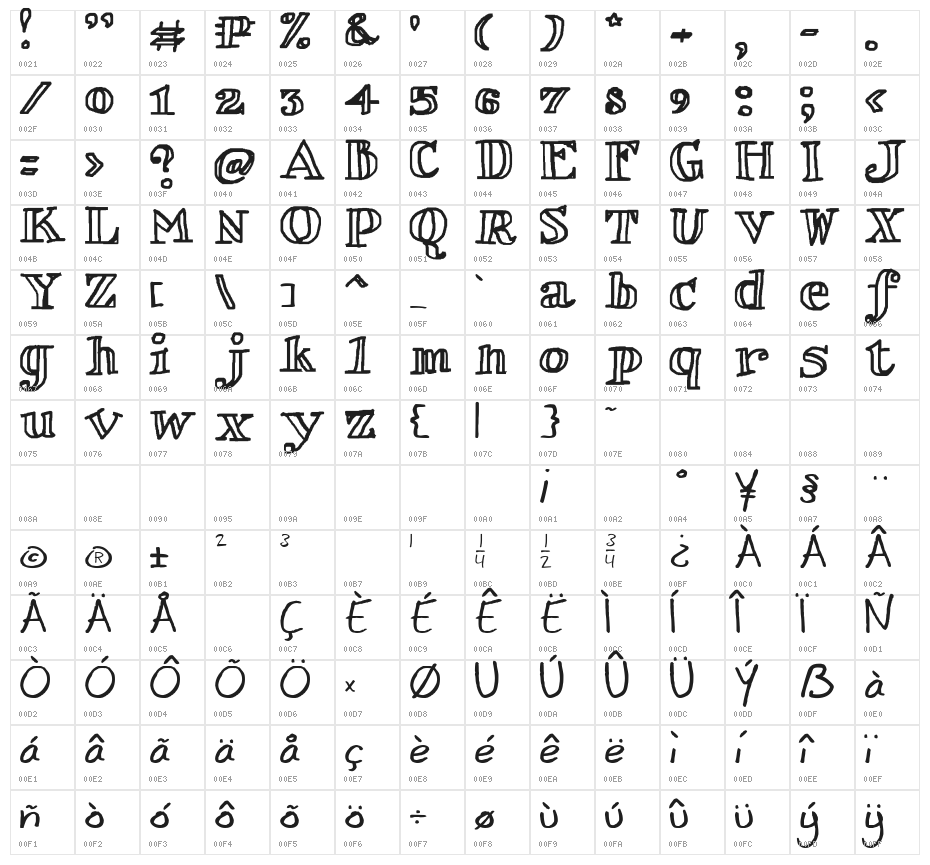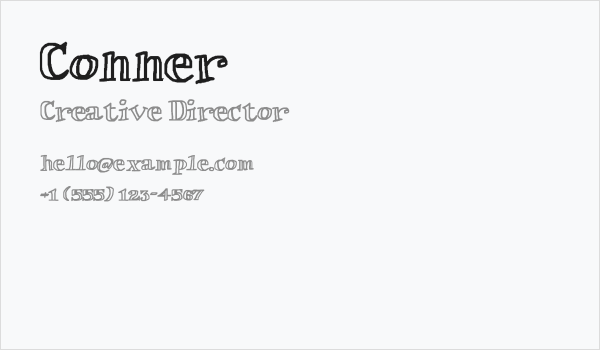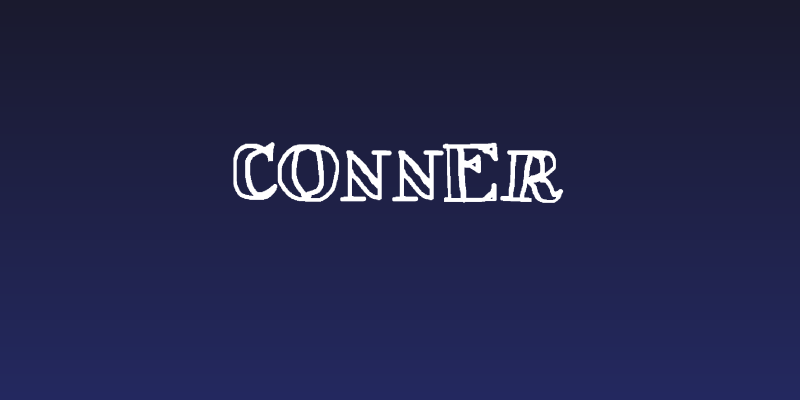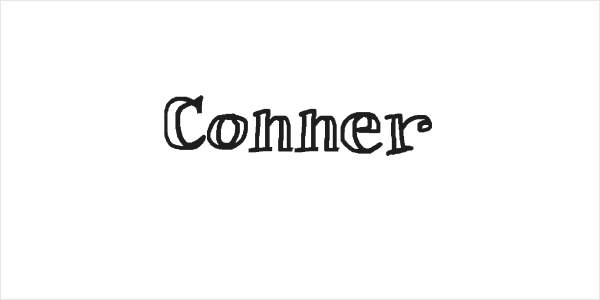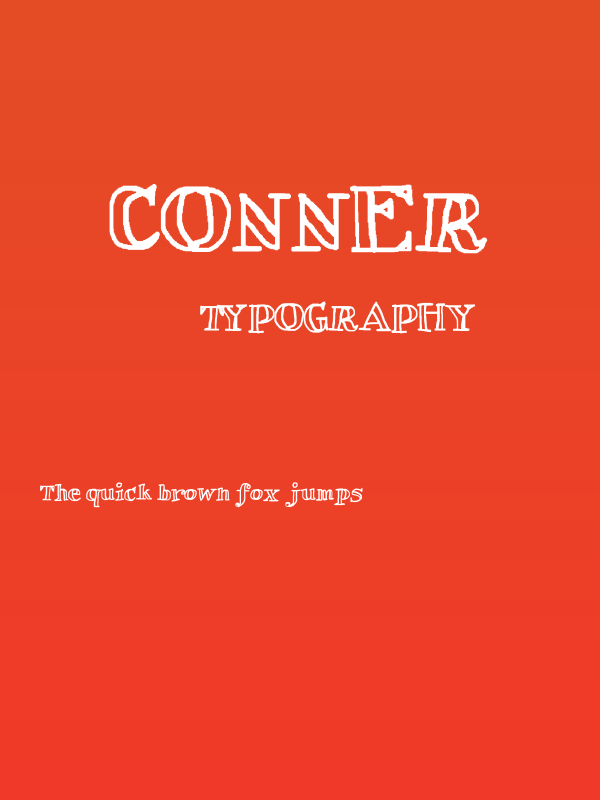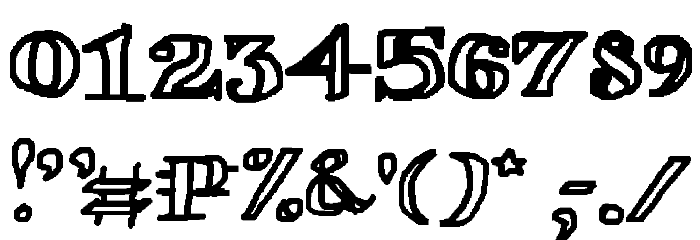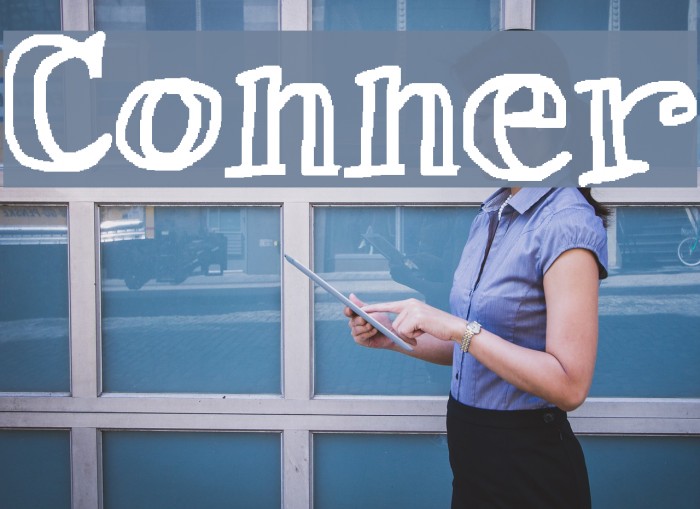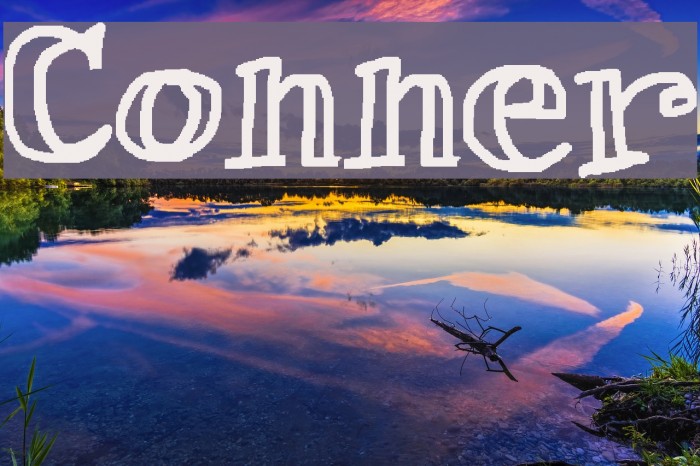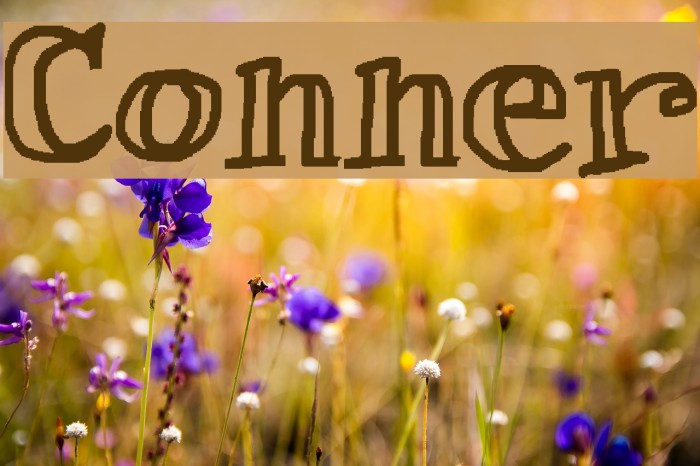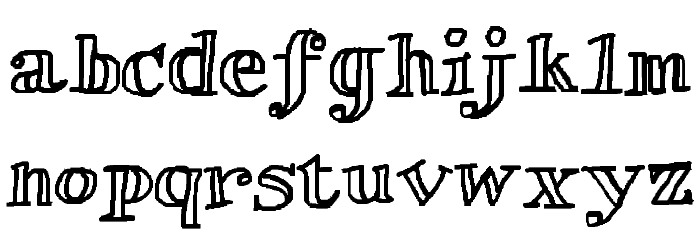
Conner Font
Conner Description
This font features a unique blend of vintage and decorative elements, characterized by its bold, serif style. The letters have a distinct hand-drawn appearance, with irregular strokes and playful curves that add a whimsical touch. The uppercase letters are bold and commanding, while the lowercase letters maintain a consistent style with slightly more intricate detailing. Numbers and special characters follow the same decorative theme, making the font versatile for various creative applications. The overall design is reminiscent of old-fashioned signage or vintage posters, offering a nostalgic yet fresh appeal.
| Overall Style | Vintage, Decorative |
| Proposed Projects | Ideal for vintage-themed posters, creative branding projects, book covers, and artistic invitations. |